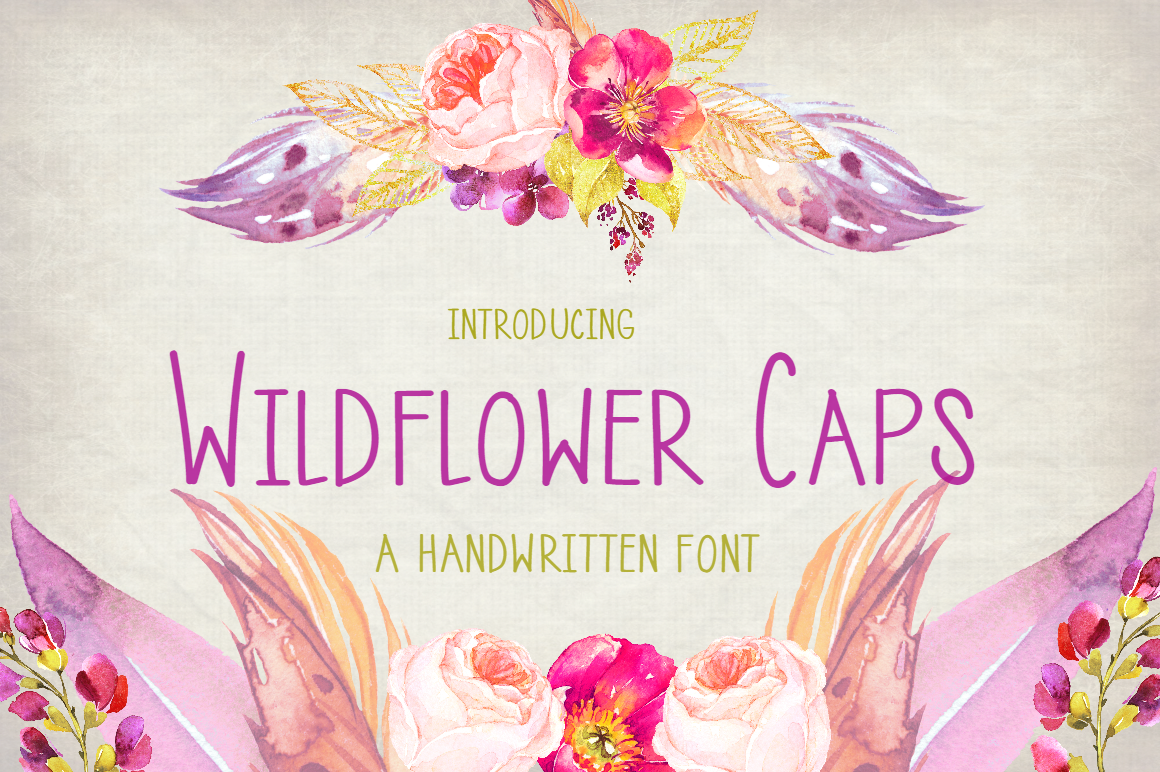
Wildflower Caps- Handwritten Font
Wildflower Caps is a modified version of my "Fields of Wildflowers" font that features all capital letters and includes Latin extensions to support most European languages.